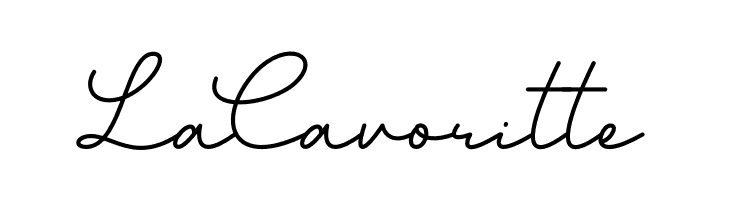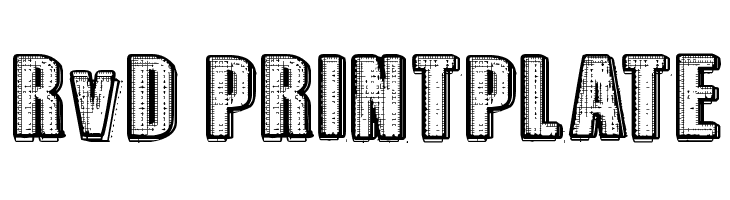
A bold, angular, and italic font with a futuristic and dynamic design.
A bold, blocky font with a strong geometric style, perfect for impactful headlines.
A lively, expressive script font with a handwritten feel.
A bold, oblique font with dynamic, angled strokes for a powerful impact.
A rugged, distressed font with a hand-drawn, primitive style.
A bold, blocky font with a distressed, vintage-inspired design.
A playful, handwritten font with a casual and friendly vibe.
A playful, casual handwritten font with irregular strokes and a friendly appearance.
A modern, italic sans-serif font with medium weight and normal spacing.
A playful, modern font with crown-like accents on uppercase letters.